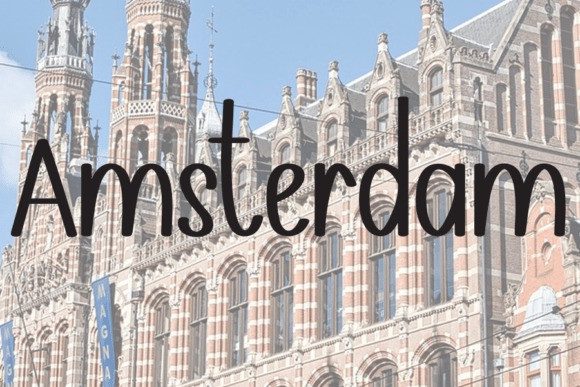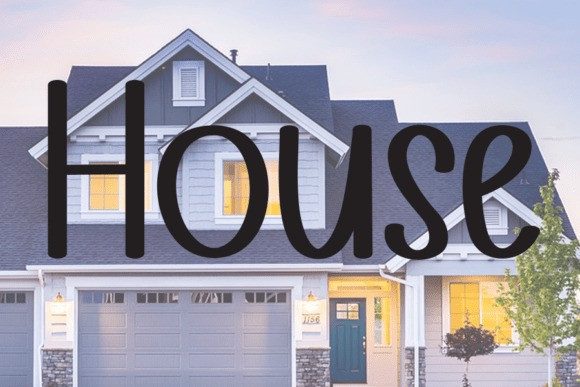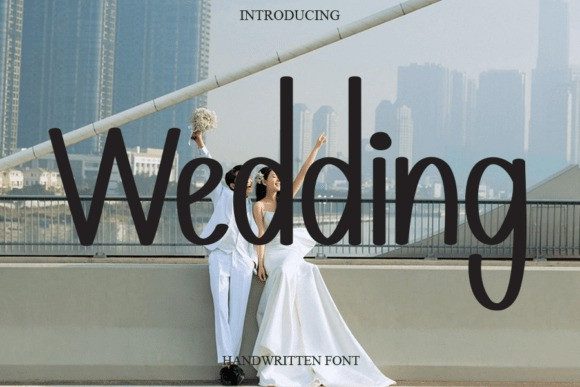
Wedding Script Type
Wedding Script Type is a trendy handwritten font with a contemporary atmosphere and impeccable form, inspired by timeless classic calligraphy. It will add elegance and class to any of your design projects.